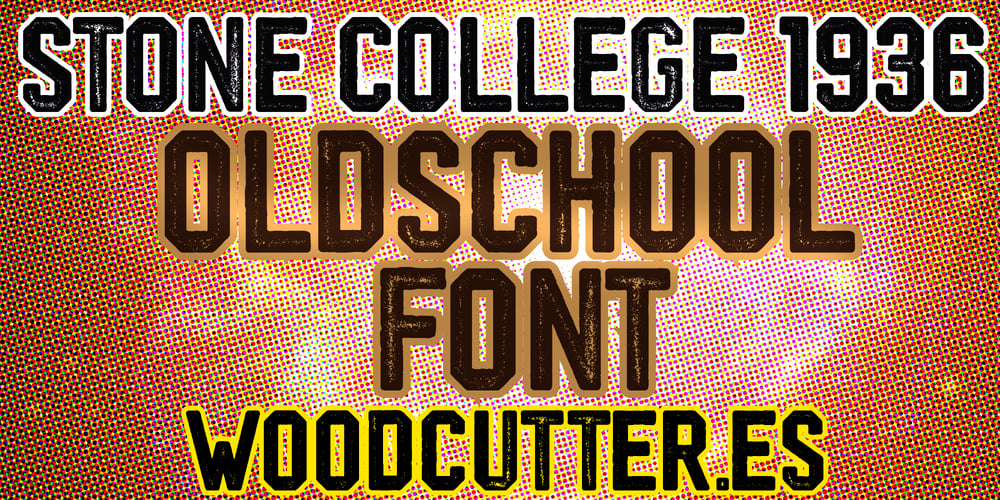
Stone College 1936 Font Family was designed by Jordi Manero and published by Woodcutter. Stone College 1936 contains 1 styles and family package options. “Stone College 1936” is a rigid, old-school style font characterized by small wear marks on each letter, giving it a vintage and authentic feel. Inspired by old stone inscriptions, this typeface evokes a sense of durability and tradition. Ideal for designs seeking a retro and solid aesthetic, “Stone College 1936” is perfect for logos, posters, and projects needing a historical and robust touch. Its worn appearance adds character and depth, making any text stand out with authority and presence.